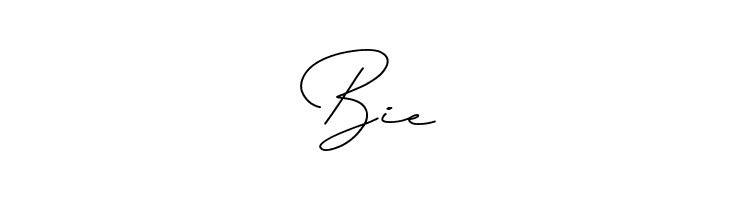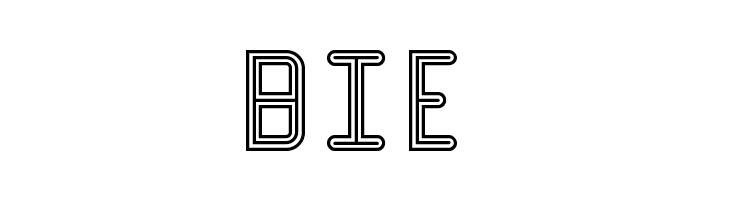
A playful, handwritten font with tall, narrow letters and a casual style.
A hand-drawn, medieval-inspired font with sharp serifs and artistic flair.
A bold, cursive handwritten font with a fluid and connected style.
A graceful script font with flowing, interconnected letters and elegant curves.
A playful, bold, hand-drawn font with rounded edges and a whimsical style.
A bold, jagged-edged font with a strong, energetic presence.
A whimsical and decorative font with playful curls and loops.
A bold, modern sans-serif font with geometric shapes and consistent stroke widths.
A geometric, outlined font with a futuristic and modern aesthetic.